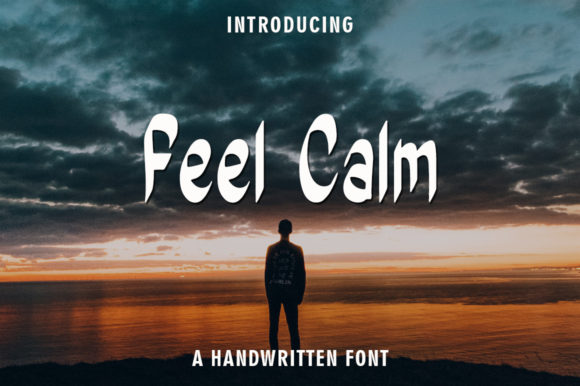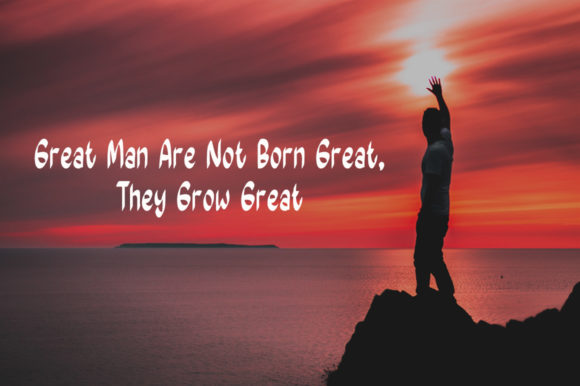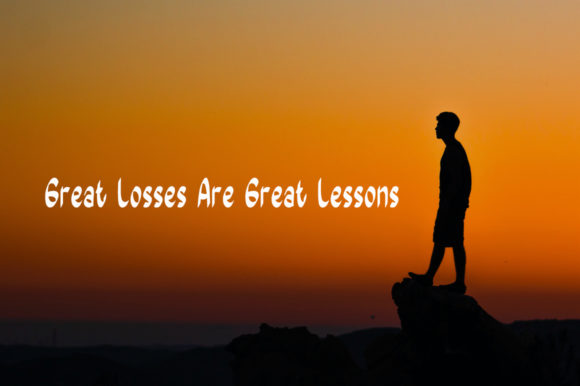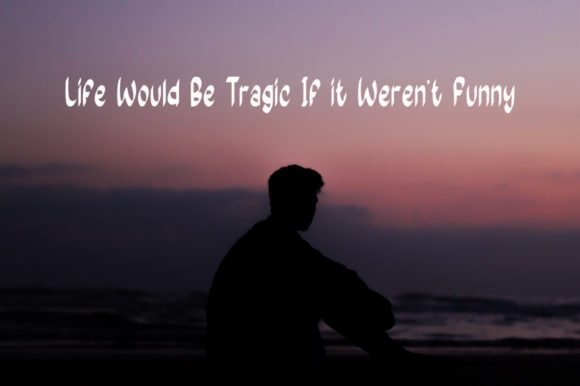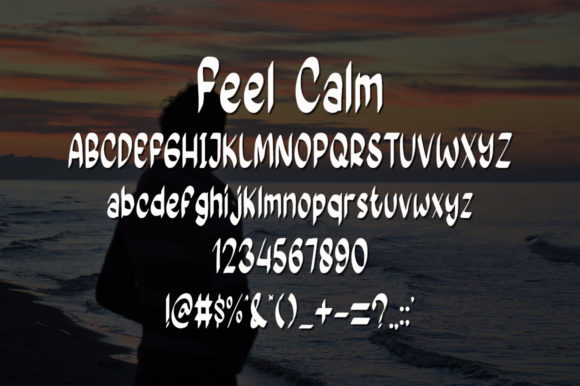
About Feel Calm Font
Feel Calm is a bold handwritten font, carefully handcrafted to become a true favorite. Its casual charm makes it appear wonderfully down-to-earth, readable and, ultimately, incredibly versatile. Feel Calm will look outstanding in any context, whether it’s being used on busy backgrounds or as a standalone headline!